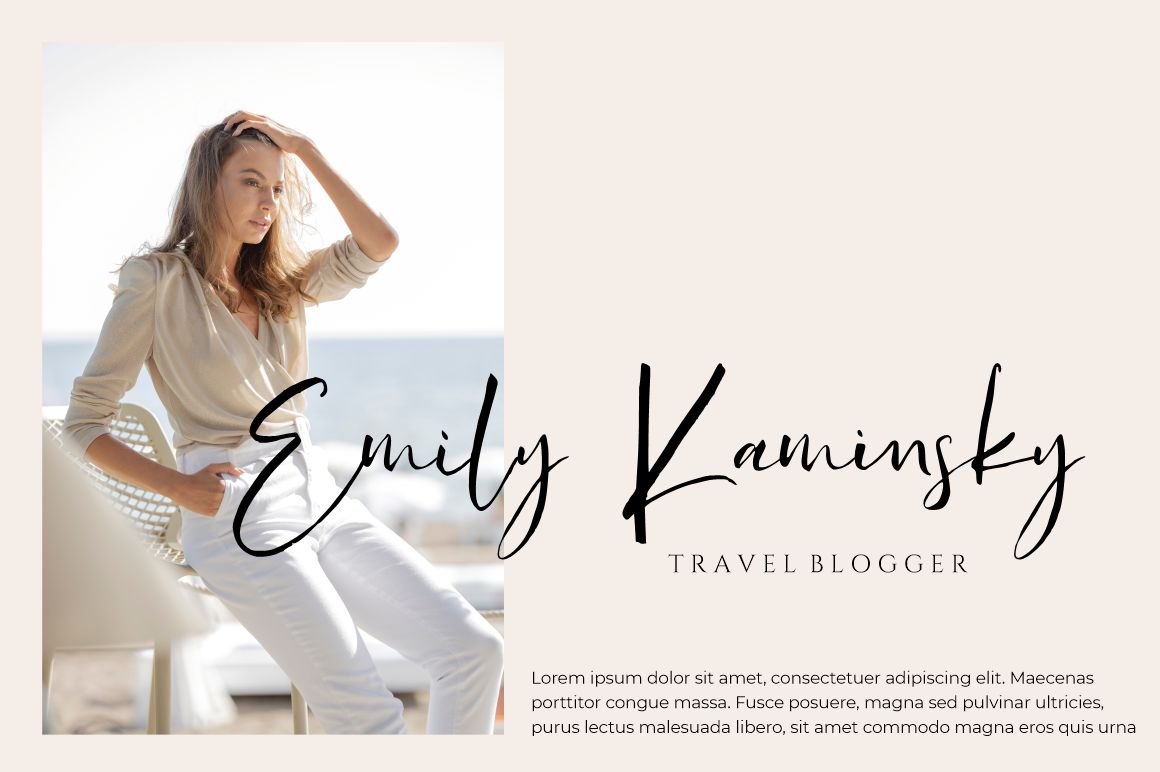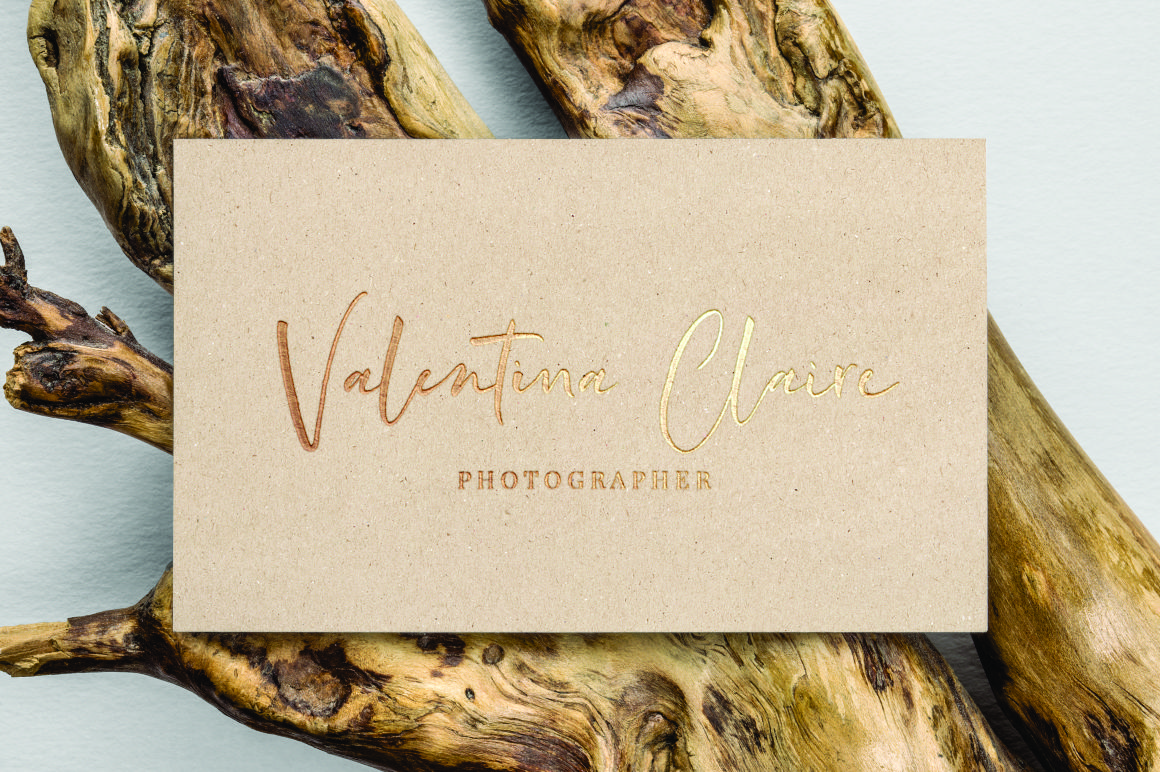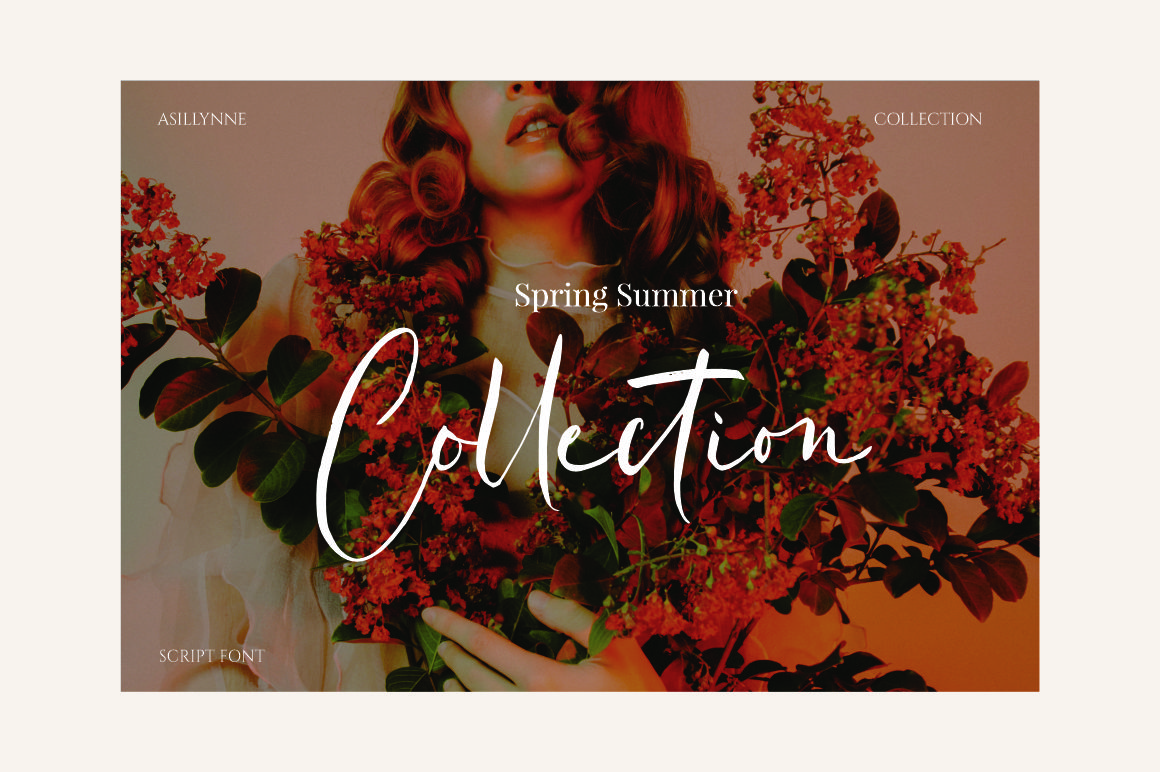
Asillynne Script Font
This font come with natural movement makes your design looks elegant, classy and beauty for your latest project.
This font is ideal for branding and decorate your any project, are perfect for wedding invitation or your blog. Also with their help, you can create a logo or beautiful frame for your home. Or just use for your book covers, stationery, marketing, magazines and more.